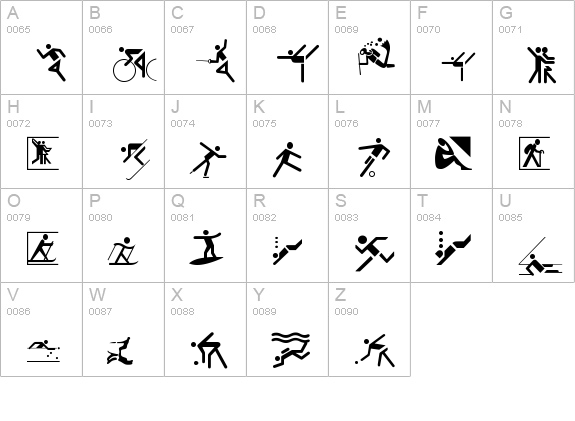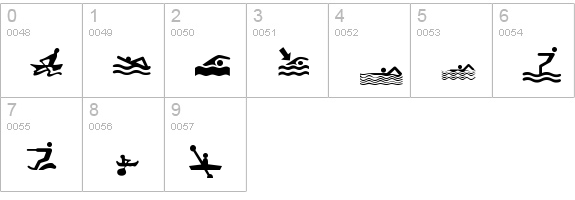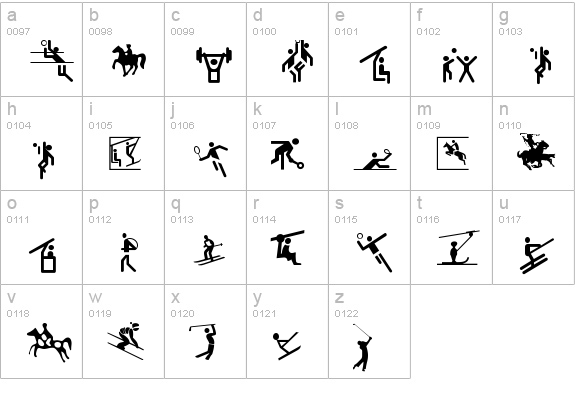
GamesSportsP02 Font Details
GamesSportsP02 is a dynamic and energetic font that encapsulates the spirit of sports and games. Its bold and sleek design exudes power and excitement, making it the perfect choice for any sports-related project. From team logos and jerseys to game posters and banners, this font will bring a sense of intensity and competitiveness to your designs. What sets GamesSportsP02 apart is not just its eye-catching aesthetics, but also its versatility. Whether you're designing for basketball, soccer, football, or any other sport, this font will seamlessly adapt to any style or theme, making your designs stand out from the crowd. But what makes GamesSportsP02 truly exceptional is that it is available for free! That's right, you can freely download this font at FontsMarket.com, ensuring that it's accessible to all designers, regardless of their budget. This means that you can bring the captivating energy of GamesSportsP02 to your projects without any financial constraints. So don't miss out on this incredible opportunity. Download GamesSportsP02 today and let your designs score big with its captivating and thrilling aesthetics. Whether you're creating sports team branding, game graphics, or sports event promotions, this font will elevate your designs to new heights and leave a lasting impression on your audience. Get ready to unleash the power of GamesSportsP02 and take your sports designs to the next level!